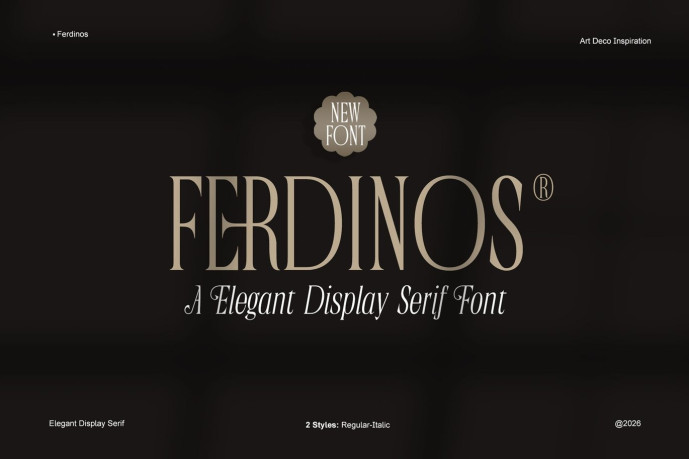
Ferdinos Font
Designer: Doratype Foundry
Ferdinos is an elegant display serif with a strong Art Deco touch. The letterforms are tall, slender, and have a subtle bold-thin contrast, creating a luxurious, artistic, and classy impression. The curved details of each character create a classic yet modern feel, making it ideal for headlines, fashion editorials, premium branding, exclusive posters, and other visual designs with a luxurious and sophisticated feel. This font includes two fonts: one upright and one italic, adding a dynamic visual rhythm.
Overall, this font conveys a timeless, contemporary vintage aesthetic with a strong character. The combination of dramatic letter proportions and generous spacing creates bold text while remaining comfortable to read at large sizes. This font is ideal for design projects seeking to emphasize an artistic, premium, feminine, and aesthetically pleasing feel.
– Two distinct styles: Upright & Italic – Proportions designed for seamless setting – Multilingual support – Standard ligatures and stylistic alternates – Uppercase and lowercase letters, numbers, symbols, & punctuation.